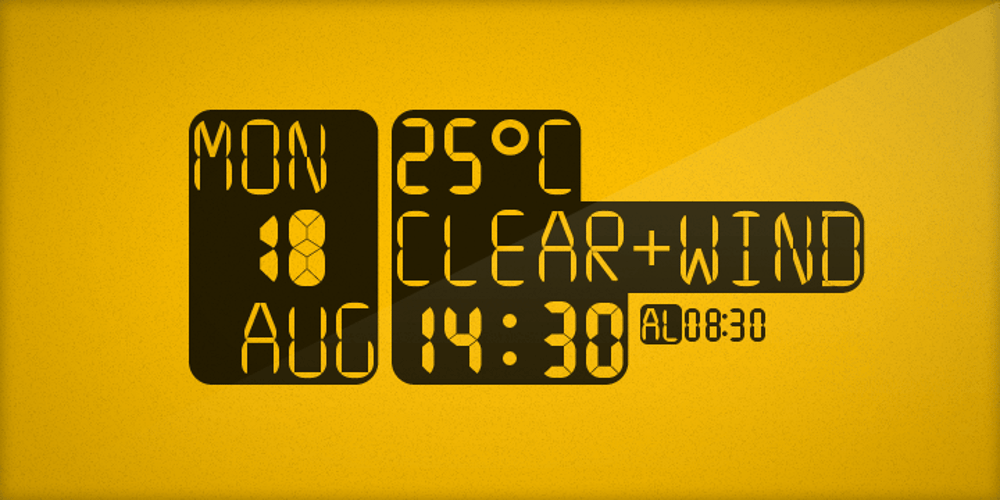
ION A Font Family was designed by Ondrej Jób and published by Setup Type. ION A contains 11 styles and family package options. ION A is a part of the ION superfamily, which consists of 3 families: condensed (ION A), normal (ION B) and wide (ION C), each having a compelling range of 10 weights. Styles Thin to Black have 436 glyphs supporting more than 70 Latin-based languages and the three heaviest weights, named U1, U2 and U3 have 94 basic glyphs. ION glyphs are based on the classic 7-segment display, but for readability and aesthetic reasons, some alphabetic characters don’t follow this matrix strictly. In case you like things in order, don’t worry, there’s a stylistic set that replaces all characters with their strict alternatives. The special characters, such as #, @ or % are composed of special segments, but are designed to fit seamlessly within the whole character set. ION was designed with the needs of contemporary graphic design in mind. There are alternative characters, discretionary ligatures, slashed zero, superior & inferior numbers, fractions, ordinals and three handy stylistic sets. The ten styles of ION A are accompanied with a special 11th style called Cells, allowing you to design a special underlying layer of black or outlined cells. This way you can create various containers and boxes for your text, highlight what’s important or go wild and draw a space invader, using the cells as building blocks. Learn more about the OpenType features and Cells at www.urtd.net/ion.